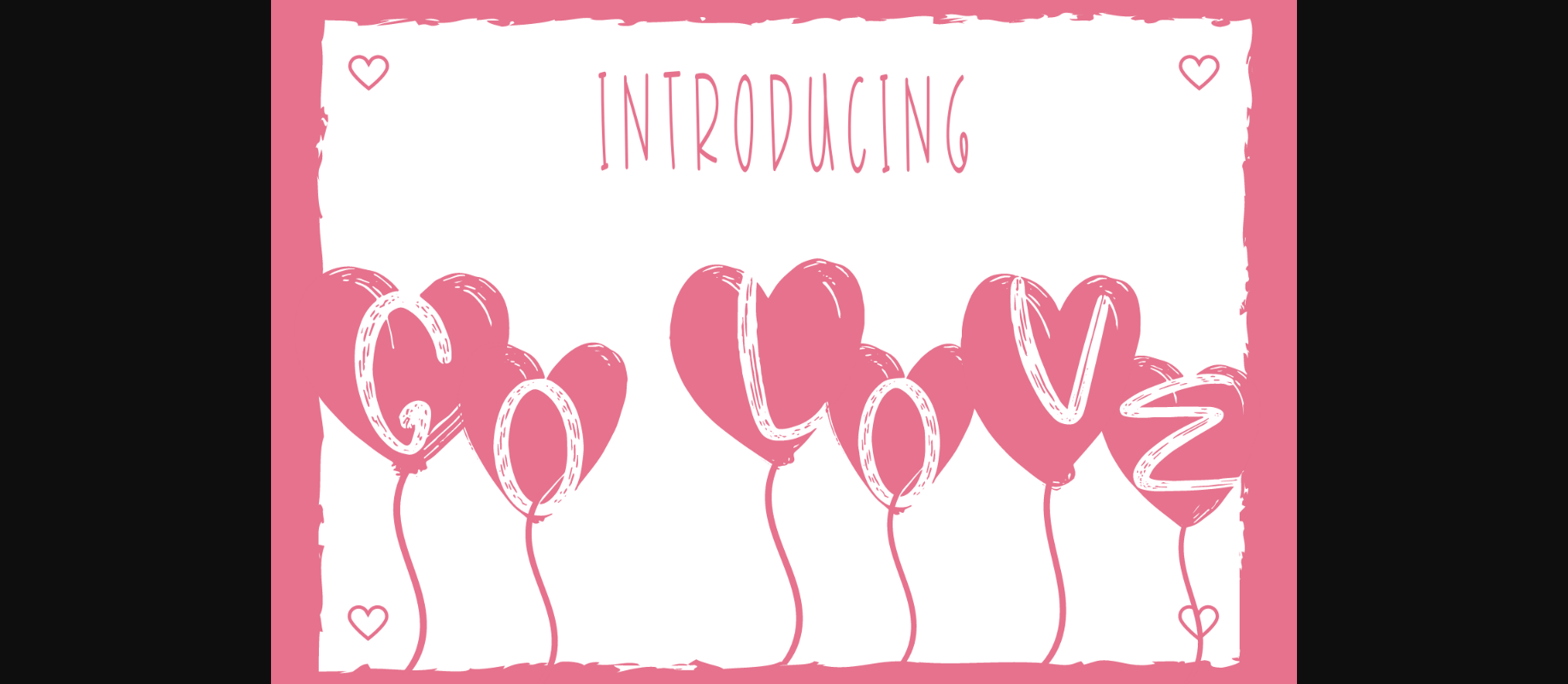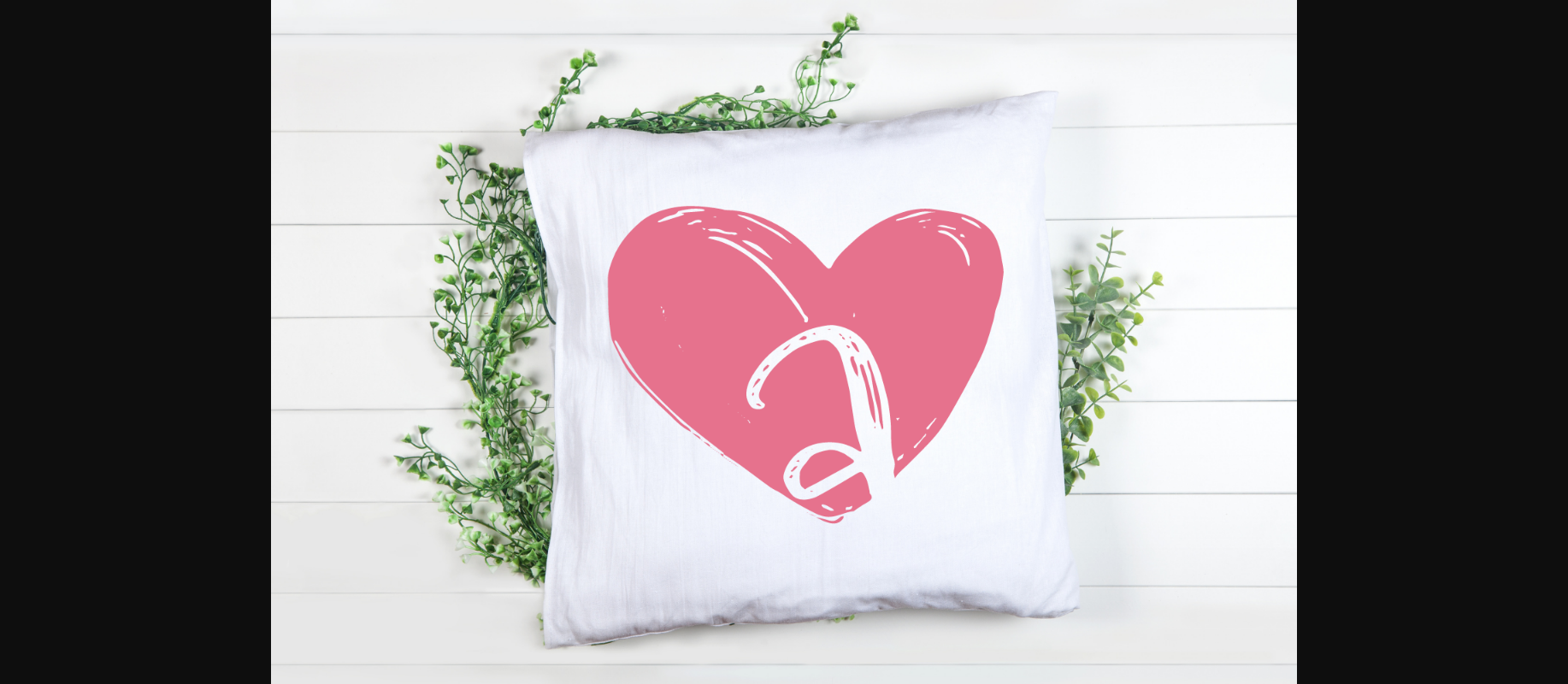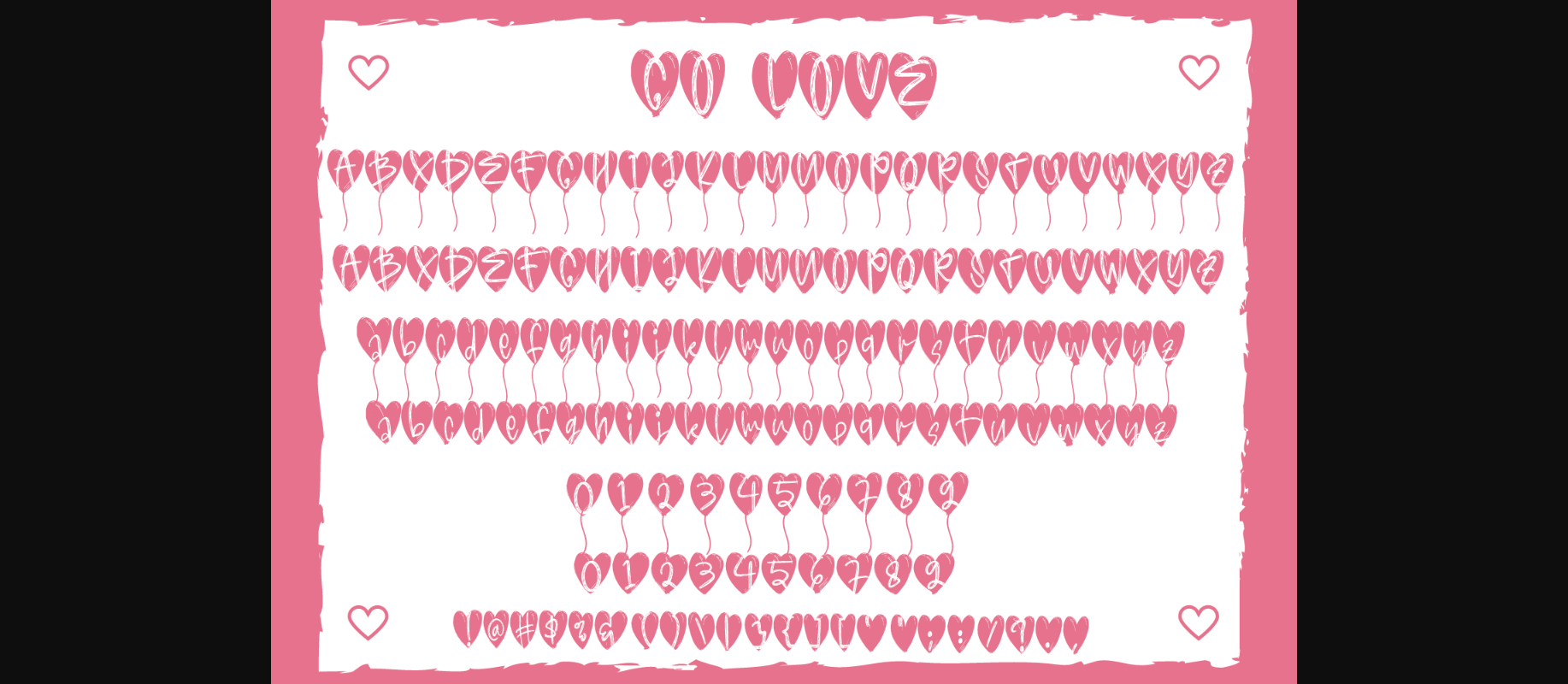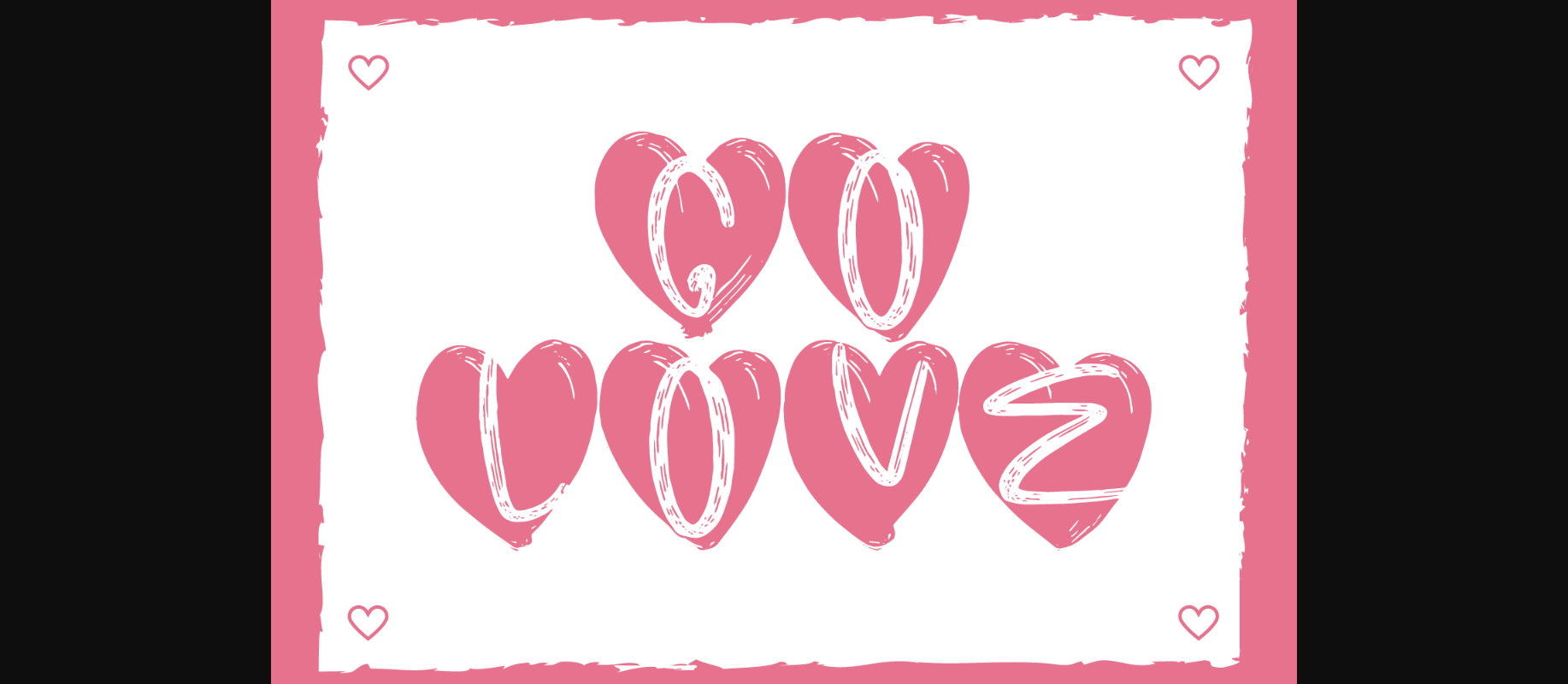
About Go Love Font
Go Love is a beautiful decorative font perfect for traditional media and the web. Its playfulness makes it great for any creative project and design, be it inspirational posters or brand promotion. It is also a great font to be used by crafters and graphic artists alike.